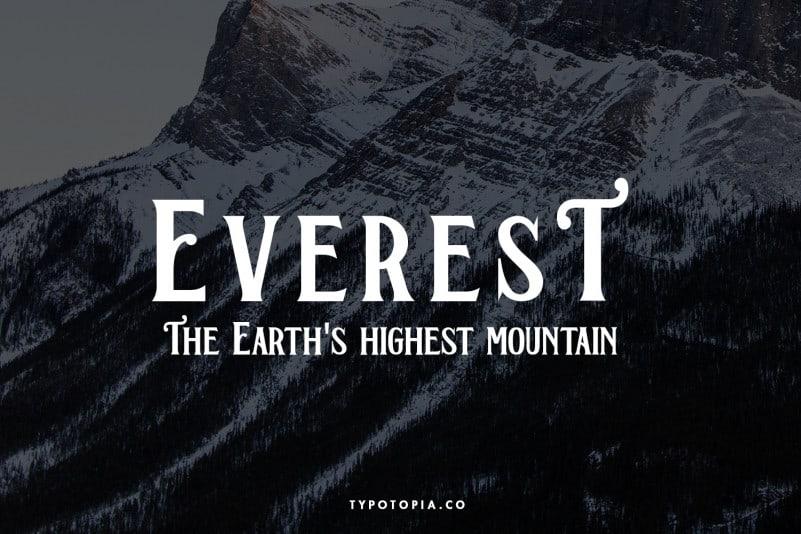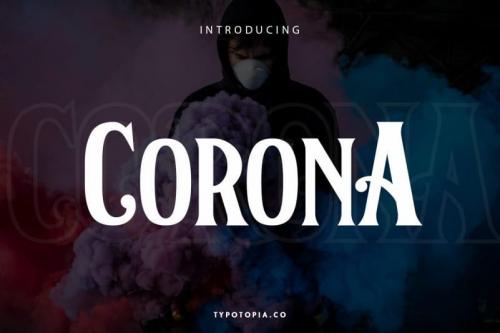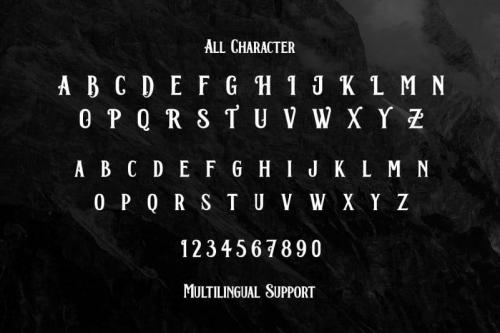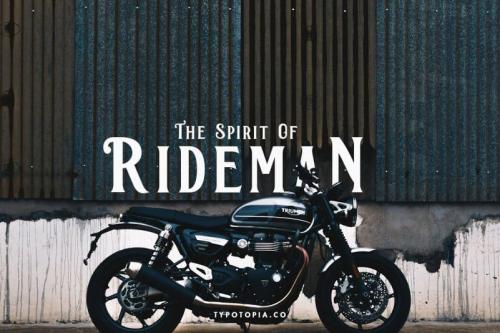
Introducing, Corona, a lovely Display Font that bring Natural feel. this Font that inspired by lettering from the good old past, but it still has a strong Classic or Medival appearance.
Corona is the great choice for several purpose, it suitable for for headline, logotype, apparel, invitation, branding, packaging, advertising etc.
Corona also Support Multilingual Feature for Foreign Language, here’s the list :
áäåãéèëìïîòöôøùüAÀÁÂÃÄÅEÈÉÊËIÌÍÎÏNÑOÒÓÔÕÖUÙÜÚÛYÝŸ?Ÿ
- Designer: typotopia